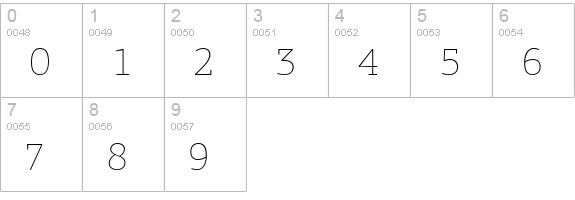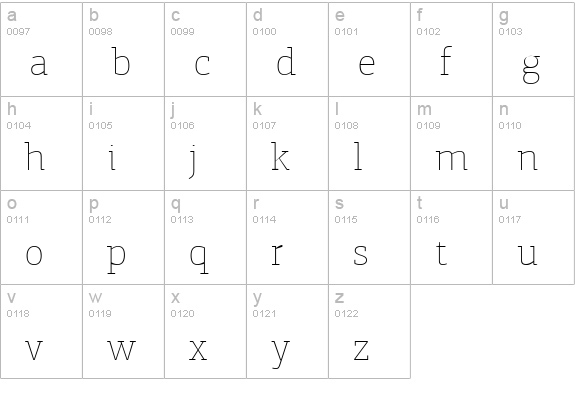
PFAgoraSlabPro-ExtraThin is a stunning font that exudes elegance and sophistication. With its delicate and refined appearance, this typeface is perfect for adding a touch of modernity to any design project. The ExtraThin weight of PFAgoraSlabPro is ideal for creating sleek and minimalist designs that make a bold statement. The best part about PFAgoraSlabPro-ExtraThin font is that it is available for free download at FontsMarket.com. This means you can easily access this beautiful font and use it in your projects without any cost. Whether you are working on branding, advertising, web design, or any other creative endeavor, PFAgoraSlabPro-ExtraThin will elevate your work with its clean lines and contemporary aesthetic. Don't miss out on the opportunity to enhance your designs with this exquisite typeface. Download PFAgoraSlabPro-ExtraThin for free today and unleash your creativity with this versatile and stylish font.